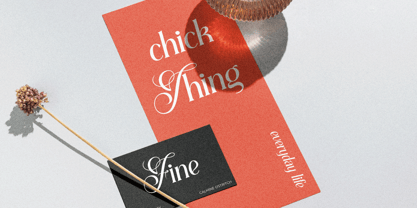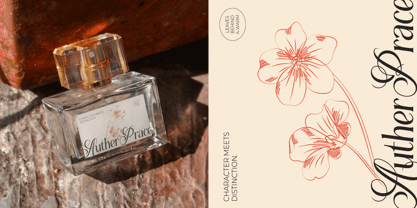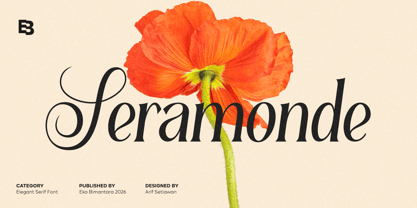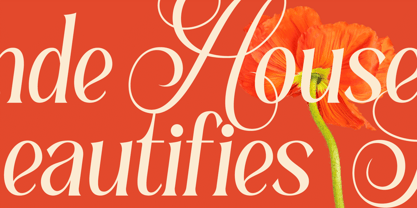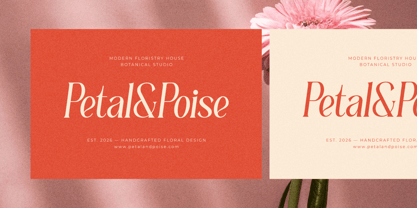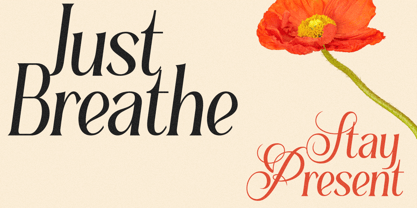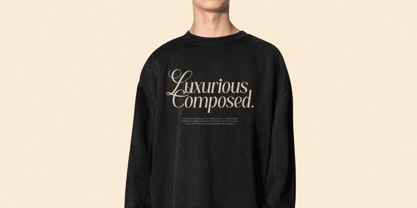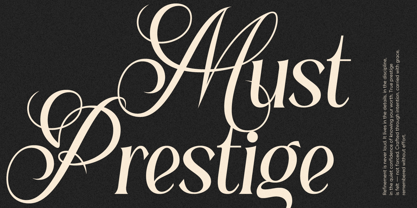
Seramonde
Seramonde is a sophisticated elegant serif typeface that blends classical refinement with expressive modern detailing. Defined by its high-contrast strokes, graceful curves, and distinctive calligraphic swashes—most notably in its striking initial forms—it evokes a sense of timeless luxury and artistic flair. The sharp serifs and fluid transitions create a harmonious balance between structure and ornament, making it particularly suitable for premium branding, editorial headlines, and high-end packaging. Seramonde’s personality shines in display settings, where its decorative elegance and refined proportions elevate visual compositions with a touch of romance and exclusivity.